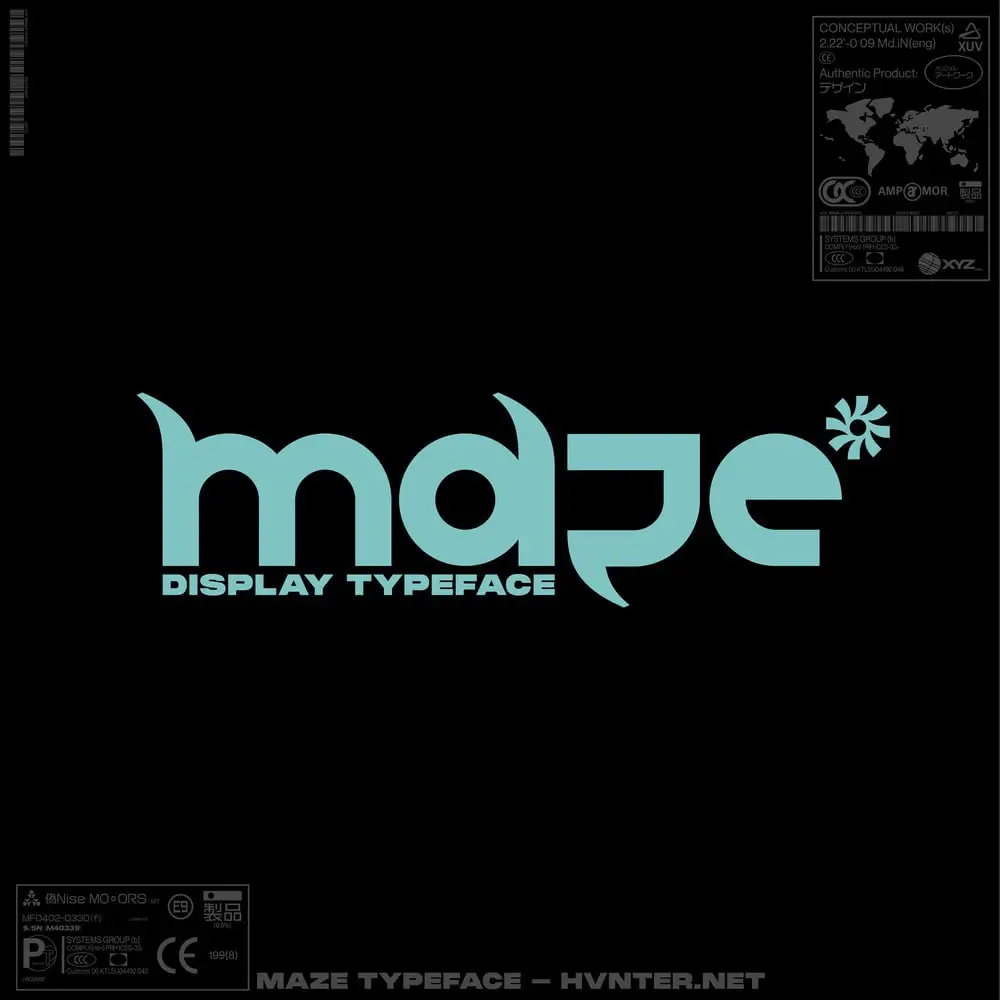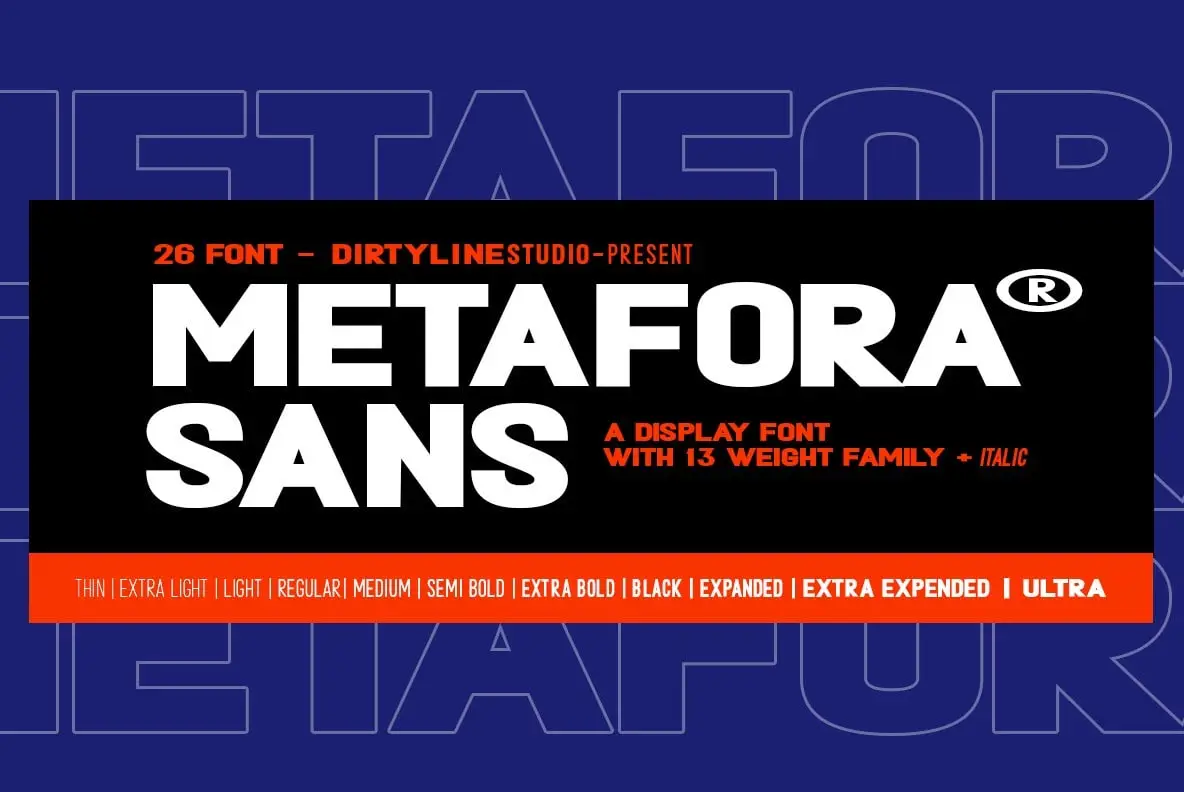
Muksalmina Creative-Faesa Breages
This digital asset is a total game-changer! 🎨 With its unique blend of artistic flair and modern design, Muksalmina Creative-Faesa Breages will elevate your projects from ordinary to extraordinary. Perfect for creative pros who crave style and innovation.
Modulord By Artem Grıgorev
Introducing Modulord—your new secret weapon for stylish and innovative design! 🚀 This versatile asset offers customizable layouts that work seamlessly with your favorite software. Trust me, your projects will thank you!
Monolog Font By Patlot Digital Std
Elegance meets modernity in the Monolog Font! ✨ With clean lines and multiple weights, this typeface is perfect for everything from branding to web design. It’s highly legible and oh-so-stylish!
Meraki.Otf-Urbanix
Urban and sleek, Meraki.Otf-Urbanix is a modern sans-serif font that screams versatility! 🏙️ Perfect for logos, branding, UI design, and print, this font will give your work a clean, contemporary edge.
Modern Font-Varibe
Say hello to Modern Font-Varibe! 🌟 This sleek typeface features clean geometric shapes and multiple weights, making it ideal for branding, web, and print work. It’s modern, minimal, and an absolute delight to use!
Nan Success By Jeremy Landes
Get ready to be inspired by Nan Success! 🌈 This unique digital asset brings a fresh perspective to your creative toolkit. High-quality and easy to integrate, it’s perfect for both personal and commercial projects.
Milena Leimig-Ladi Typeface
Elegance personified! 💃 The Milena Leimig-Ladi Typeface blends soft curves with sharp edges for a look that’s both beautiful and bold. With multiple weights and full numeral support, it’s a typographic dream.
Metafora Sans
Metafora Sans is the definition of modern clarity! 🧊 This contemporary sans-serif comes with multiple weights, including italic, plus multilingual support. Perfect for branding, web, and print—it’s a must-have!
Modern-Colaste
Modern-Colaste seamlessly blends contemporary style with functionality! 🖌️ This digital asset collection offers a variety of styles that are super easy to customize. Get ready to transform your designs!
Maze Typeface By Hvnter
Get lost in the beautiful geometry of the Maze Typeface by Hvnter! 🔷 With regular and bold styles, plus OTF/TTF formats, this font is perfect for eye-catching branding and logos.
Moonie Eyes Font By Ikiiko
Whimsical, playful, and utterly charming—the Moonie Eyes Font is here to steal your heart! 🌙 With uppercase, lowercase, numerals, and punctuation, it’s perfect for adding a touch of magic to any project.
Mothra-Display Font
Make a bold statement with Mothra-Display Font! 💥 Designed for standout headlines and posters, this striking typeface comes in multiple weights and formats. It’s impossible to ignore!
Modern Font 1
Simple, sleek, and super versatile! ✨ Modern Font 1 is a contemporary typeface with multiple weights, clean lines, and easy readability at any size. A true workhorse for any designer!
Mayes-Variable Font By © Sabrcreative
Flexibility is the name of the game with Mayes-Variable Font! 🎭 This adaptable typeface offers a range of styles and weights, ensuring seamless integration across digital and print projects. OTF and TTF formats included!
Monotype Neo Tech Font Family
Tech-forward and incredibly versatile! 🚀 The Monotype Neo Tech Font Family offers a modern selection of typefaces perfect for branding, web, and print. Sleek lines and a contemporary aesthetic make this a top pick.
Miju Typeface
Clean, modern, and super adaptable—Miju Typeface is every designer’s best friend! 🌟 With Regular, Bold, and Italic styles, this font provides a cohesive look across all your projects.
Monalysa Sans Serif
Geometric perfection meets balanced proportions in Monalysa Sans Serif! 🎯 This modern typeface is great for branding, logos, and web design. Multiple weights give you all the flexibility you need.
Melodrama Font
Add a touch of drama to your designs with the beautifully crafted Melodrama Font! 🎭 Elegant and sophisticated, it’s perfect for everything from branding to print. OTF and TTF formats make it super easy to use.